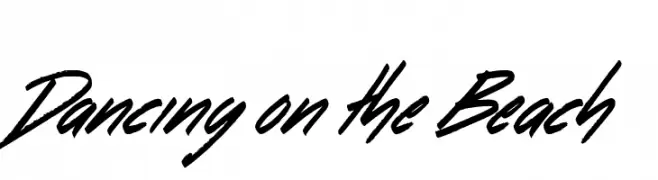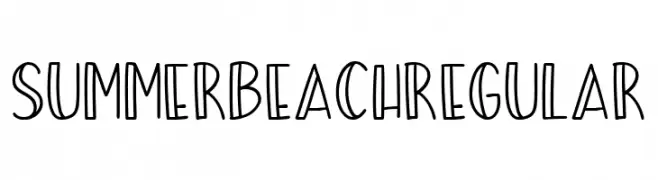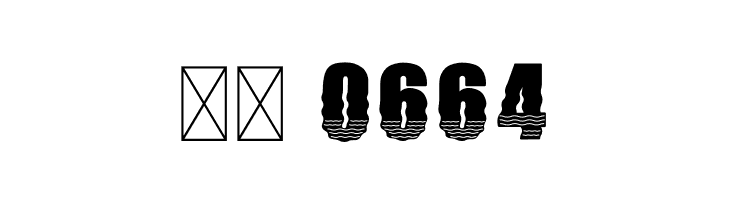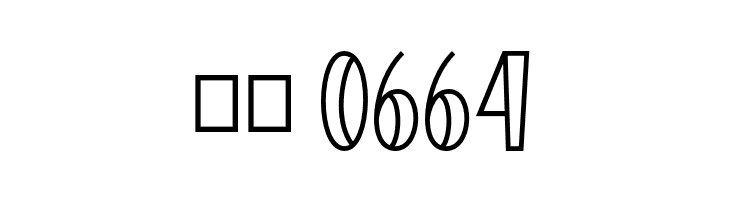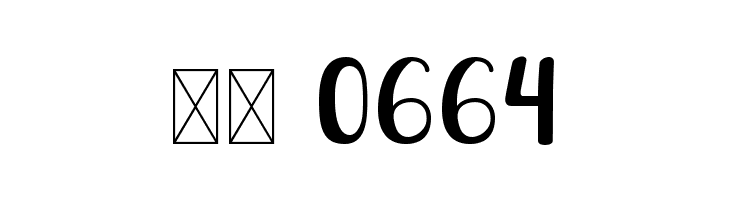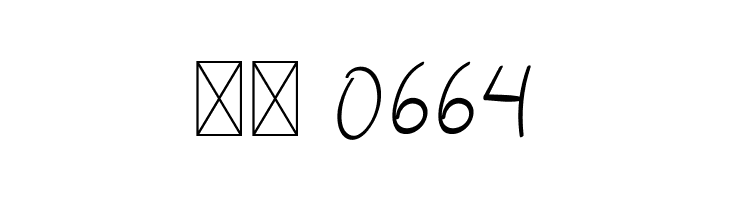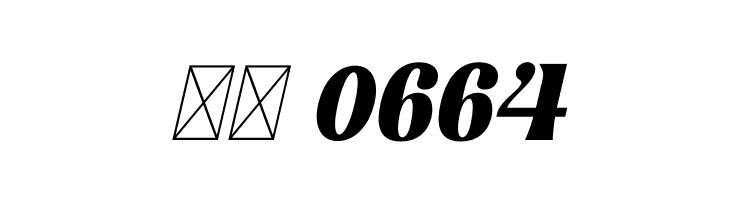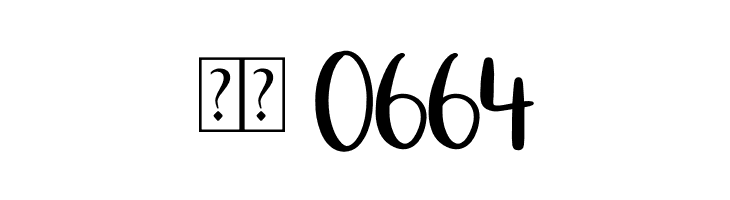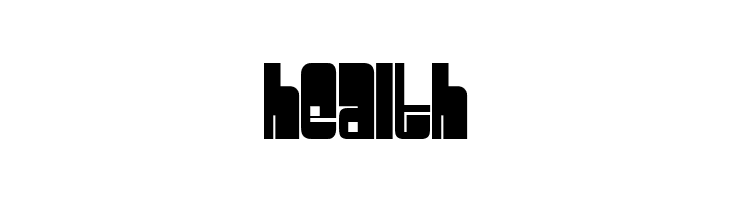
A playful, handwritten font with smooth, rounded strokes and a casual style.
A bold pictogram set with beach and ocean motifs.
A bold, flowing script font with dynamic, connected characters.
A fluid and elegant script font with a handwritten calligraphy style.
A playful, handwritten font with a modern, energetic style.
A playful and energetic script font with flowing, cursive letters.
A lively, cursive font with bold, expressive strokes and playful movement.
A playful, beach-themed decorative font with bold, textured characters.
A bold, shadowed sans-serif font with a modern, geometric style.
A bold, geometric font with angular lines and a blocky appearance.
A playful, hand-drawn font with bold, irregular characters and a cartoonish style.
A flowing, cursive font with a relaxed, handwritten style.
A fluid and elegant script font with smooth, flowing lines.
A bold, grunge-style font with a distressed texture and dynamic appearance.
A bold, decorative font with circular embellishments and a retro-modern style.
A modern, minimalist font with clean, geometric lines and consistent stroke width.
A bold, distressed font with a vintage, rugged appearance.
A bold, flowing script font with a playful and energetic vibe.
A playful, hand-drawn font with tall, narrow letters and a whimsical style.
A playful, summer-themed font with beach motifs and a casual, handwritten style.
A bold, playful handwritten font with rounded, whimsical letterforms.
A playful, cursive font with bold, flowing characters and elegant loops.
A playful and casual handwritten font with fluid, organic strokes.
A playful, bold handwritten font with thick, rounded strokes.
A playful, whimsical font with a blend of curves and straight lines, ideal for creative projects.
A modern, high-contrast font with geometric and edgy characteristics.
A playful, cursive font with a handwritten feel, perfect for personal and creative projects.
A bold, hand-painted style font with a playful and casual vibe.
A playful, bold script font with lively curves and smooth connections.
A bold, playful font with rounded, bubbly characters and a hand-drawn feel.